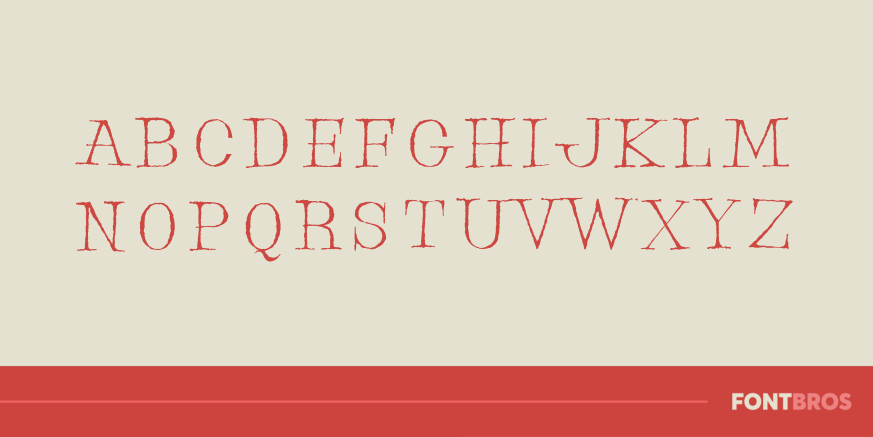
Pink Flamingo
Font Family by Font Diner
A pen walks into a bar, gets loaded then turns out this tipsy retro serif font! It wakes up the next morning feeling drained!